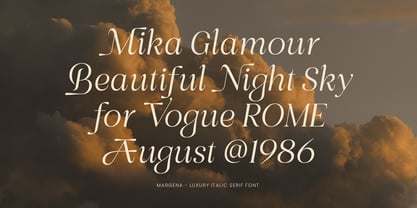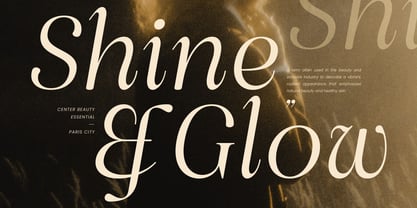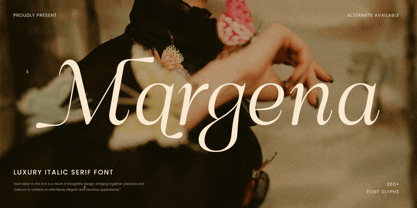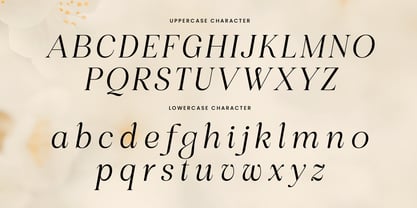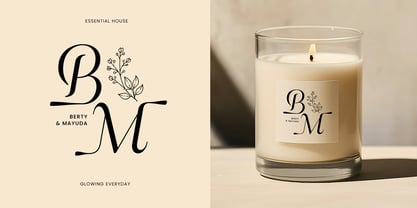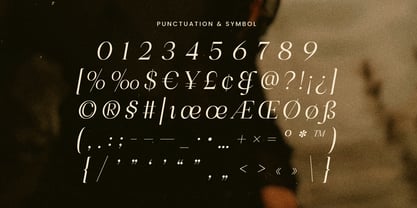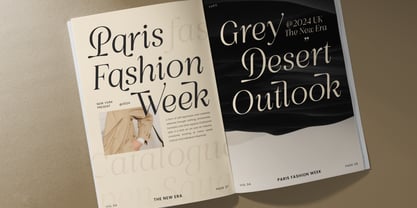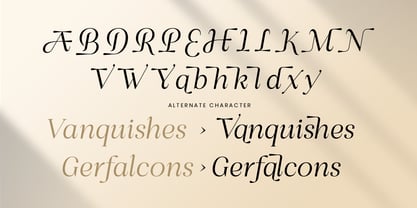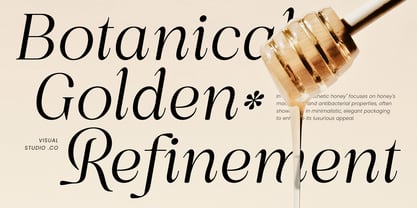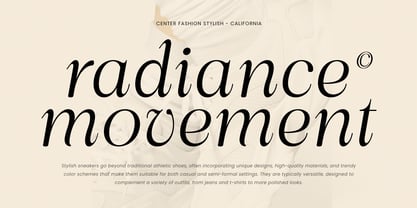
Margena - Luxury Italic Serif Font
An Expression of Elegance and Grace
Darling is a luxury italic serif font crafted to convey sophistication and charm. Its delicate curves and refined slant evoke a sense of timeless beauty, making it perfect for high-end design projects.
Versatile for Chic and Premium Designs
Ideal for branding, wedding invitations, logos, and editorial layouts, Darling elevates your creations with its luxurious and stylish appeal. Its unique character ensures your designs stand out.
A Marriage of Tradition and Contemporary Flair
Darling blends the classic elegance of serif fonts with a modern italic twist. This versatile typeface brings both tradition and innovation to your design toolkit, enhancing every project with a touch of class.
Margena Luxury Italic Serif Font Features:
Alternates Characters Ready
Punctuation, Number, and Symbol
Uppercase and Lowercase
Opentype Features
Multilingual Characters available for:
Afrikaans, Albanian, Asu, Basque, Bemba, Bena, Breton, Chiga, Cornish, Dutch, English, Estonian, Filipino, Finnish, Friulian, Galician, German, Gusii, Indonesian, Irish, Italian, Kabuverdianu, Kalenjin, Kinyarwanda, Luo, Luxembourgish, Luyia, Machame, Makhuwa-Meetto, Makonde, Malagasy, Manx, Morisyen, North Ndebele, Nyankole, Oromo, Portuguese, Quechua, Romansh, Rombo, Rundi, Rwa, Samburu, Sango, Sangu, Scottish Gaelic, Sena, Shambala, Shona, Soga, Somali, Spanish, Swahili, Swedish, Swiss.
Margena